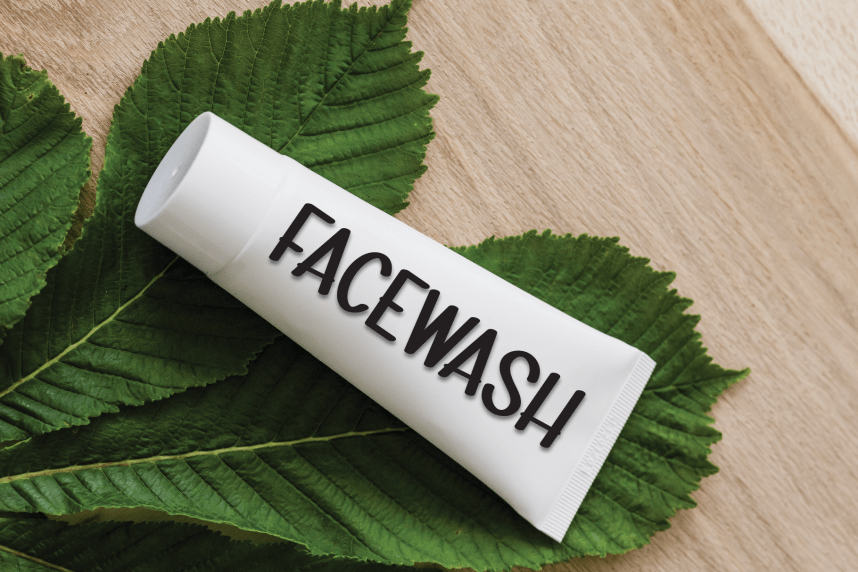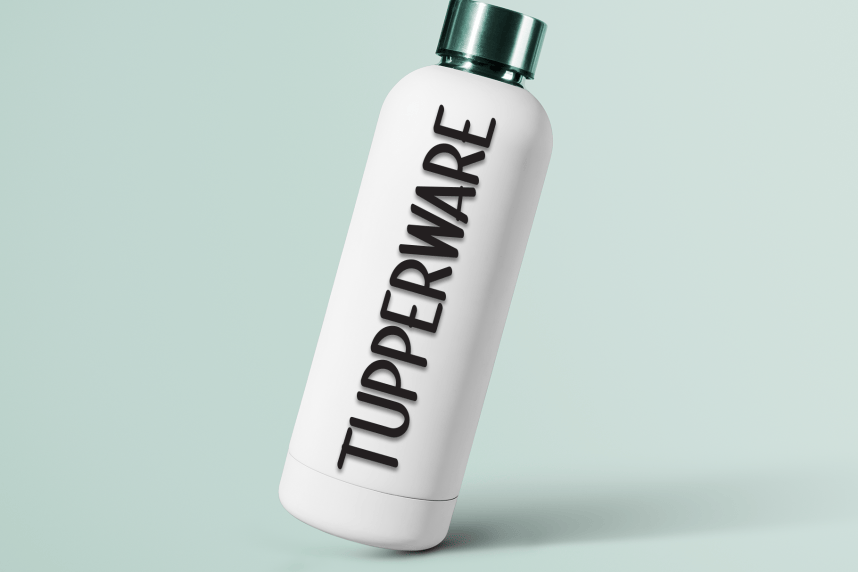
Easter Summer – Playful Handmade Font
Easter Summer – Playful Handmade Font is a sweet and friendly handwritten display font. Cute and fun, this font is ideal for writing wedding invitations, cards, or any other design that might need a playful touch!